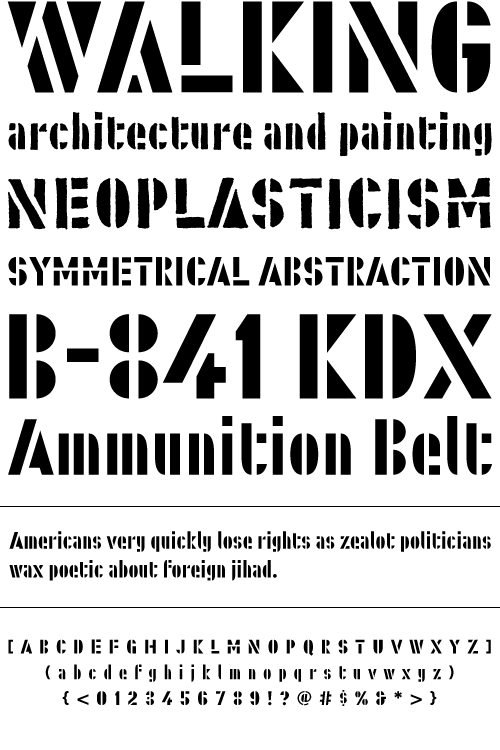
Bandoleer
Bandoleer from MADType is a new versatile stencil typeface family. Inspiration for the typeface came from both Art Deco and Military sources. It comes with both a clean geometric and hand drawn version so you don't have to get carpal tunnel sketching it out yourself. This typeface is equally at home stenciled with paint on a wall or used on a music poster.
Weights:
Regular, Tracer